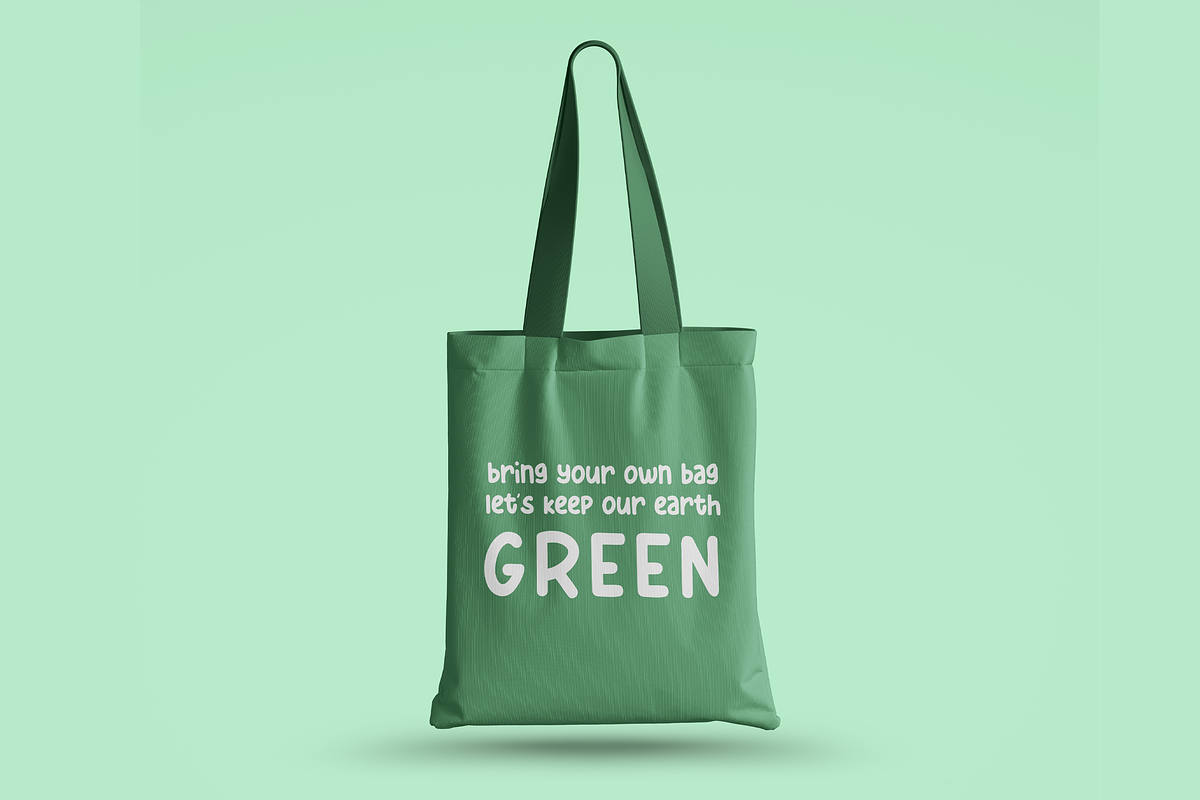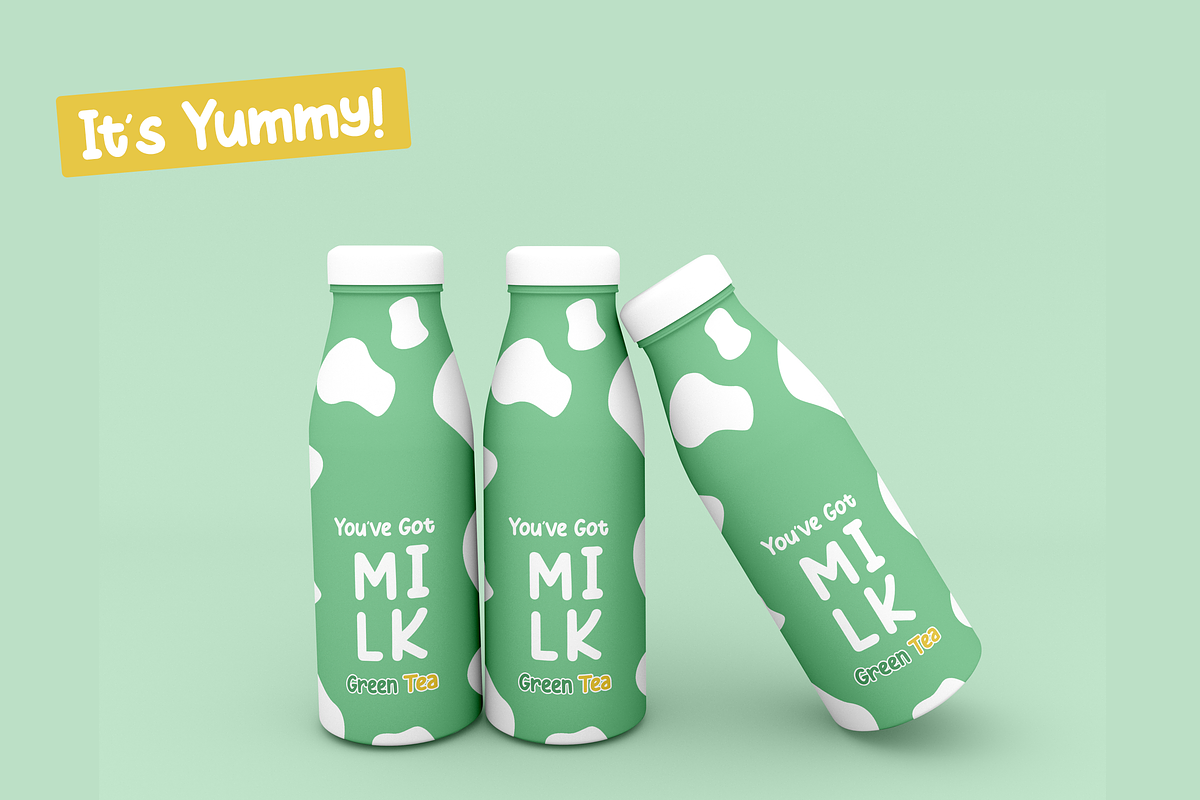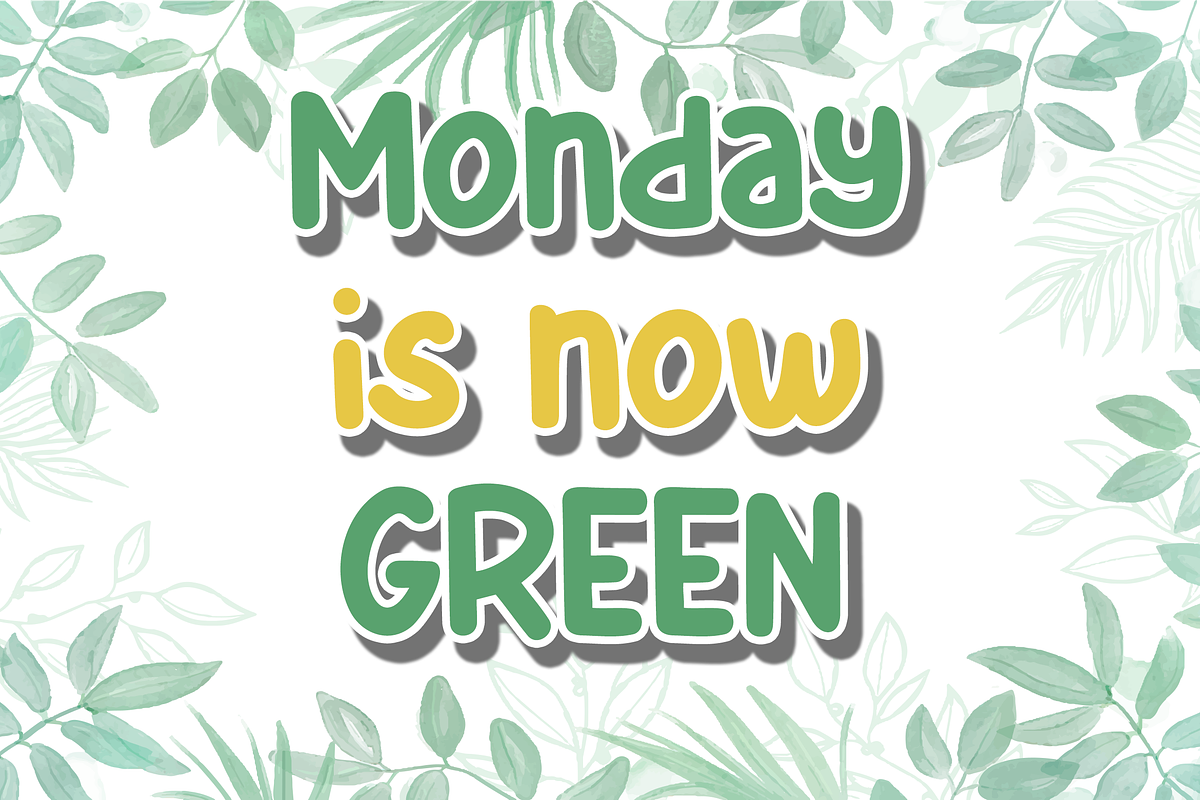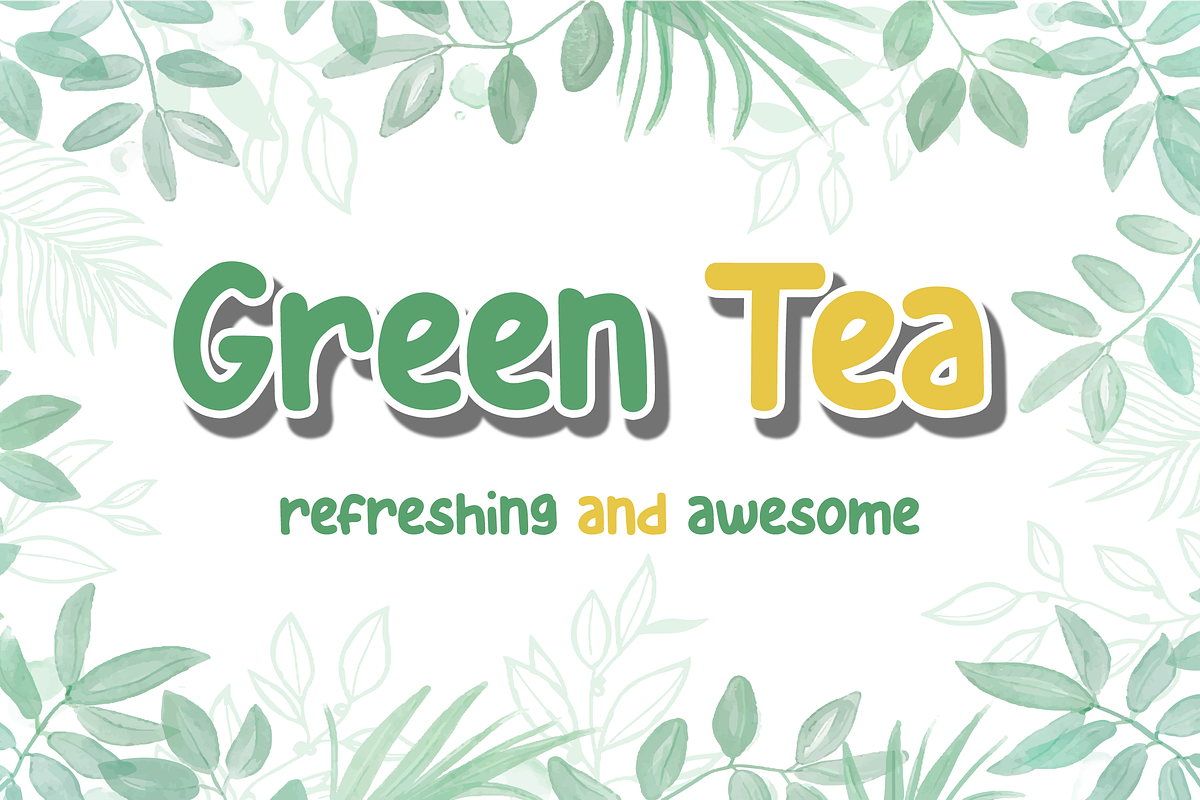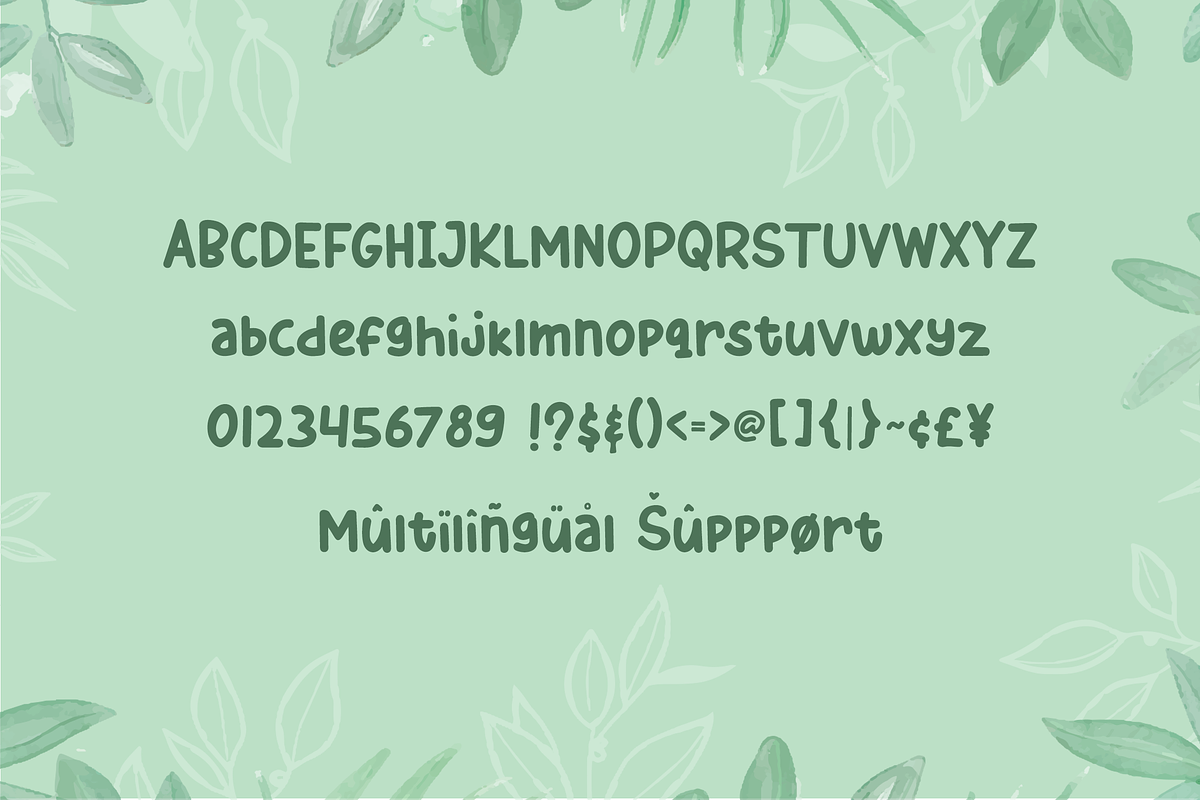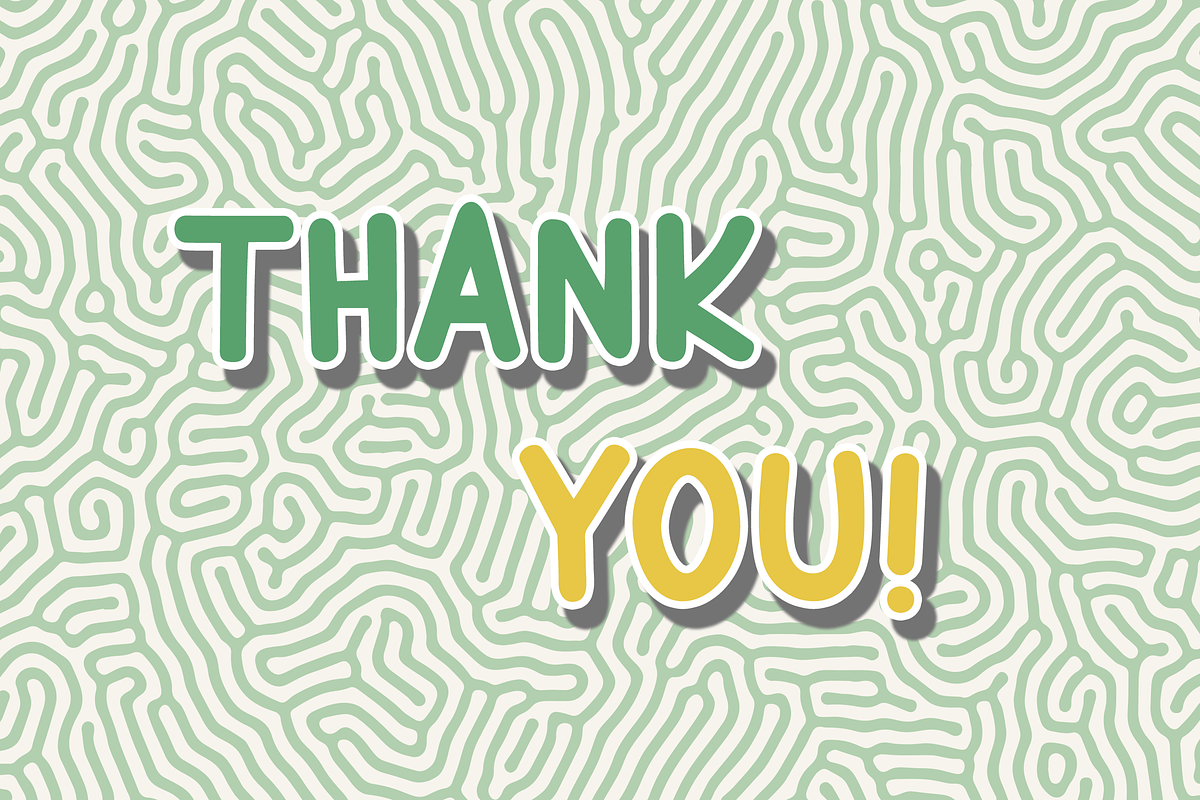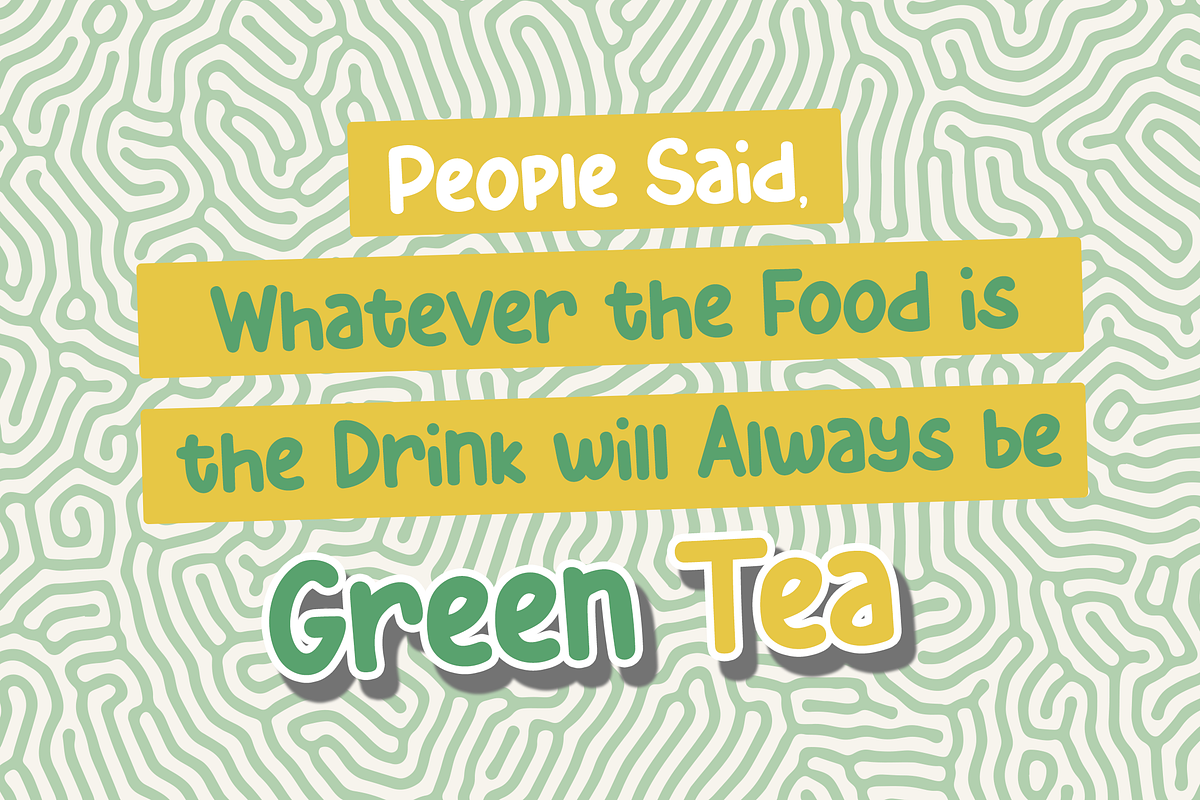
Green Tea | Refreshing and Awesome
Green Tea is a sweet, refreshing and awesome font. This font has strong and cute shape. It's unique style makes it incredibly fitting to a large pool of designs. Suitable for many crafting projects or to complete your children books illustration. Try and use this font to enhance your design!
Language Support; It does support basic International Characters